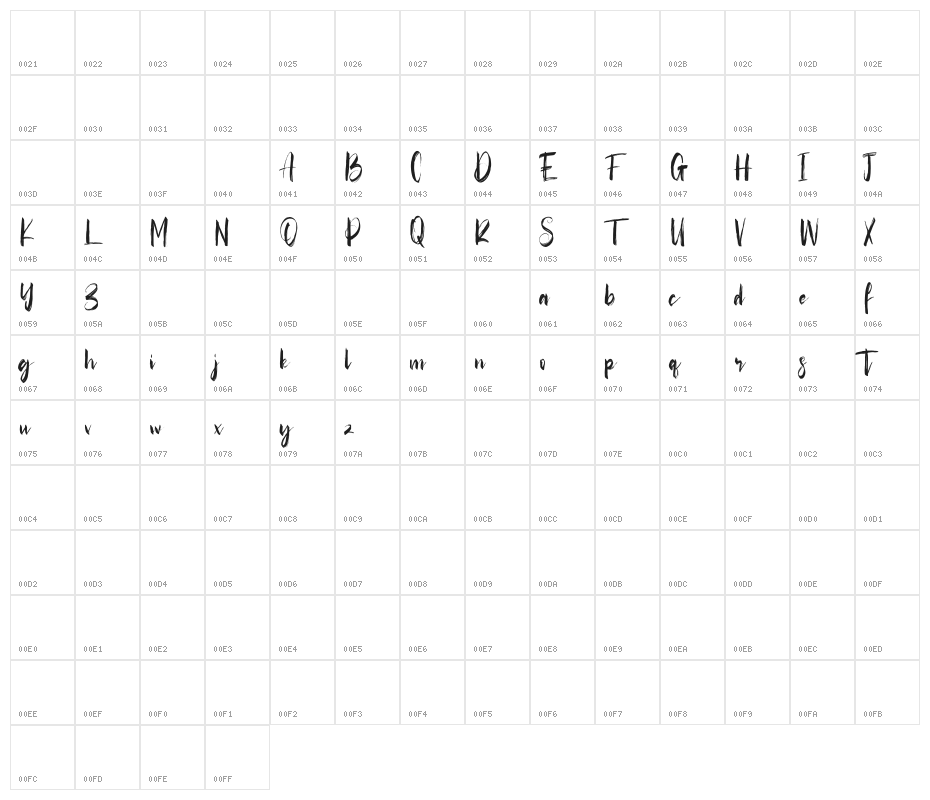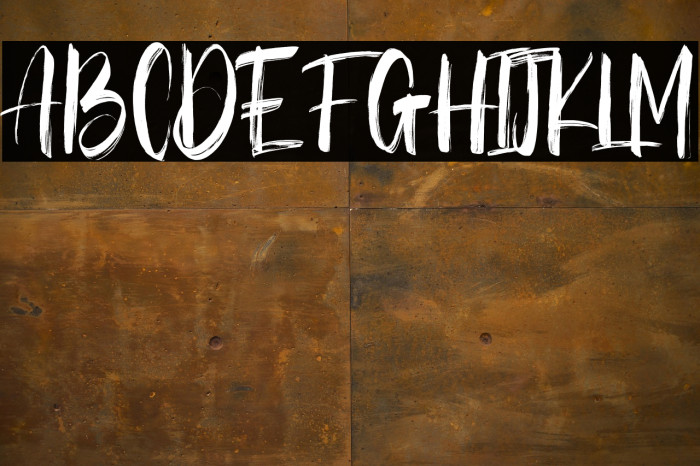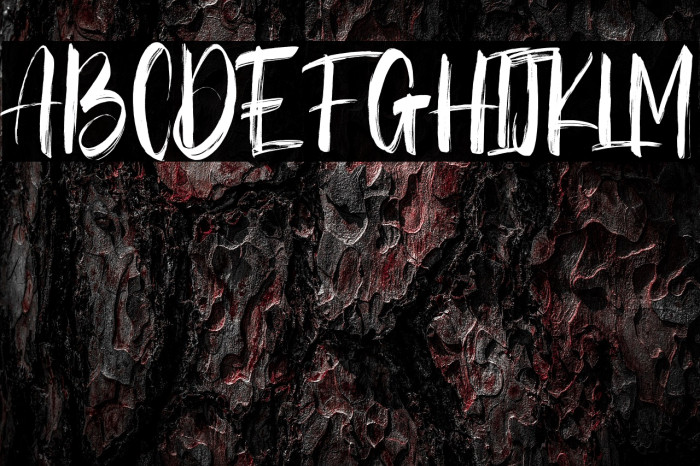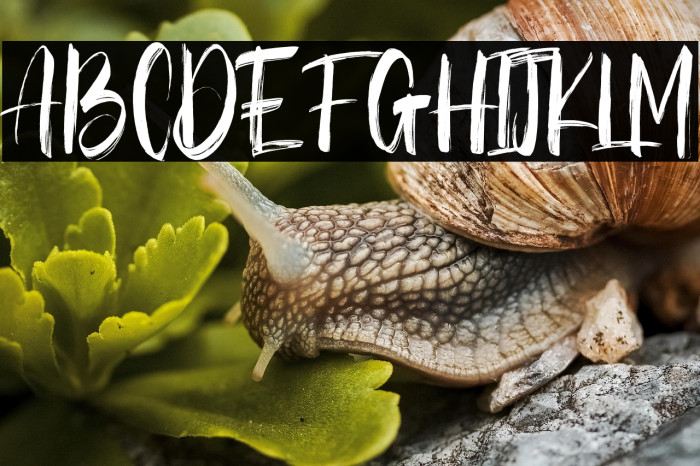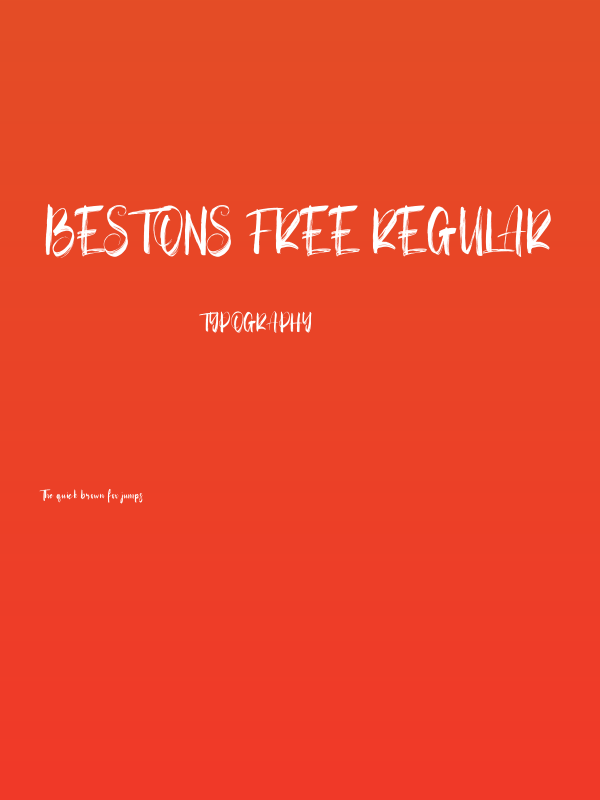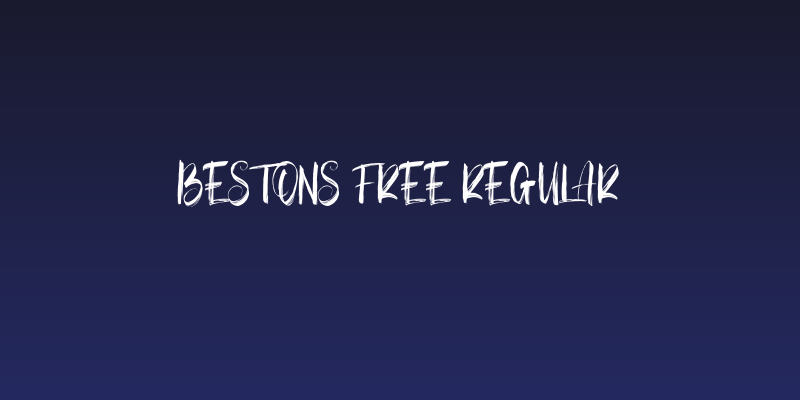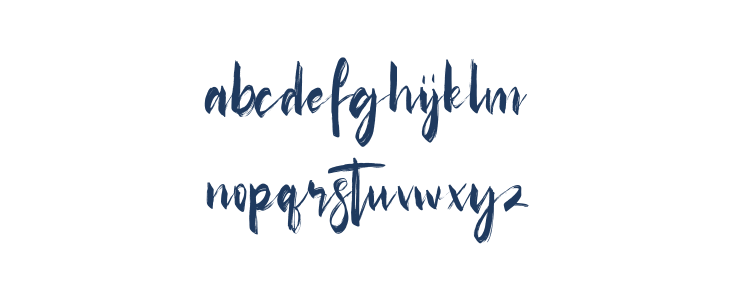
Bestons Free Regular Font
Bestons Free Regular Description
This font exhibits a dynamic and expressive handwritten style, characterized by bold, sweeping strokes and a brush-like texture. The uppercase letters are particularly striking, with a sense of movement and flair that suggests a creative and artistic touch. The lowercase letters maintain this fluidity, offering a cohesive look across the alphabet. The numbers and special characters are equally expressive, ensuring consistency throughout. This font's unique style makes it ideal for projects that require a personal and artistic touch, such as invitations, posters, and branding materials.
| Proposed Projects | Ideal for invitations, posters, branding, and artistic projects. |